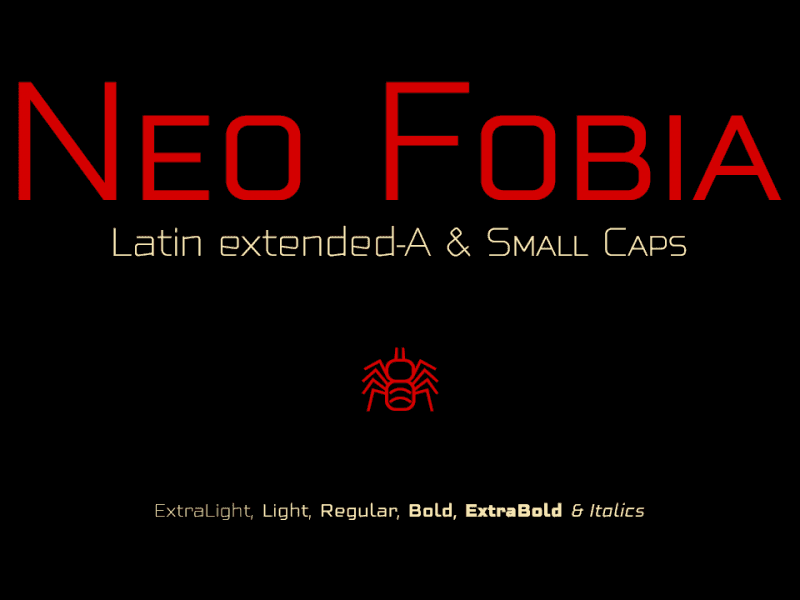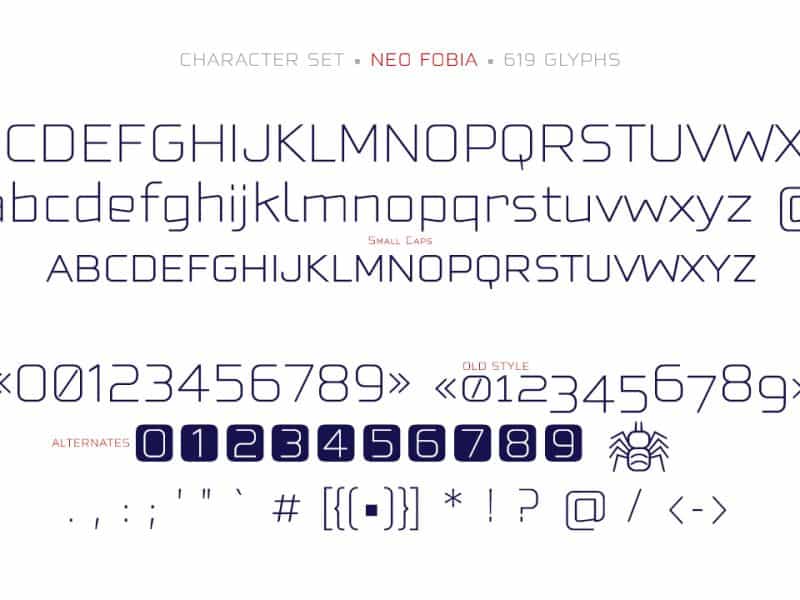
Neo Fobia is a sans serif typeface with letters in small caps, 10 exclusive fonts of square proportion and technological style which has a geometrical design that makes it highly readable and minimalist. Neo Fobia is a font that can be used in graphic design and advertising for various purposes like poster design, video games, film titles, logos etc. It is very flexible and versatile in terms of the things it can do.